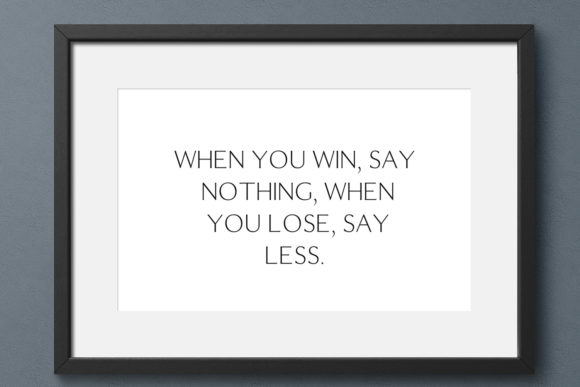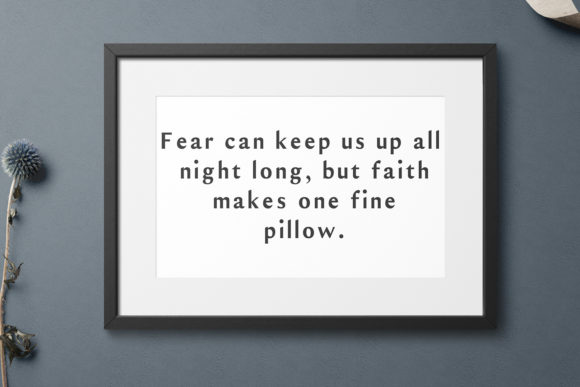
Introduction to Maleah Font
Do you remember that moment when you were working on a creative project, and the perfect font just seemed to slip right through your fingers? You spent hours scrolling through design resources, searching for the perfect combination of style and elegance. If you’re a designer, you know the importance of finding that one font that can elevate your entire project.
That’s where the Maleah Font comes in – a sleek, modern sans serif font that’s sure to become your go-to design resource. With its thin lines and elegant style, Maleah Font is perfect for a wide variety of designs, from digital products to print materials. Its high quality and versatility make it an invaluable asset for any designer looking to take their creative projects to the next level.
Key Features of Maleah Font
- Transparent Background: The Maleah Font features a transparent background, making it ideal for creative projects where a subtle, non-distracting look is desired.
- High-Quality Design: The Maleah Font boasts high-quality design, with crisp, clear lines and precise letterforms that are sure to elevate any creative project.
- Unique Characteristics: The Maleah Font features a unique, modern aesthetic with clean lines, rounded edges, and a minimalist feel that makes it perfect for a variety of creative projects.
- Perfect for Creative Projects: The Maleah Font is ideal for creative projects such as logos, branding, packaging, and digital design, where a high-quality, modern font is essential.
Honest Review: Maleah Font
As a designer, I’m always on the lookout for high-quality design resources that can elevate my creative projects. Recently, I stumbled upon the Maleah Font, and I’m excited to share my honest review with you.
- ✨ Elegant and modern design: The Maleah Font boasts a sleek and sophisticated look that’s perfect for high-end branding projects.
- ✨ Versatile font set: The font family includes a range of weights and styles, making it easy to find the perfect fit for your creative project.
- ⚠️ Limited use for transparent backgrounds: Unfortunately, the Maleah Font doesn’t work well with transparent backgrounds, which can be a limitation for designers who need a font that can easily blend into the background.
Overall, I’m impressed with the Maleah Font’s high quality and versatility. While it may not be perfect for every project, it’s a great addition to any designer’s arsenal. With its elegant design and free download, it’s definitely worth checking out.
Maleah Font
The Maleah Font is a versatile and stylish design resource that can elevate any creative project. With its high-quality aesthetic, this font is perfect for designers looking to add a touch of sophistication to their work.
Tips for Getting the Most Out of Maleah Font
For the best results, use Maleah Font in conjunction with a transparent background to create visually appealing designs. Experiment with different font sizes and styles to add depth and interest to your project.
The Maleah Font is perfect for a variety of creative projects, including logos, graphics, presentations, and documents. Its high-quality design and transparent background make it ideal for designers looking to add a touch of sophistication to their work.